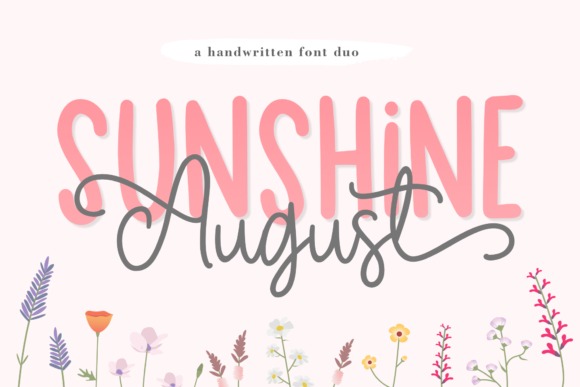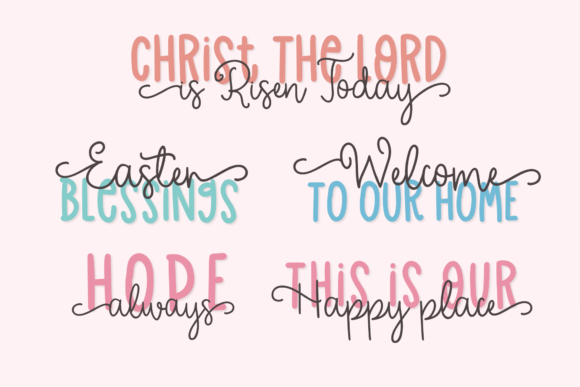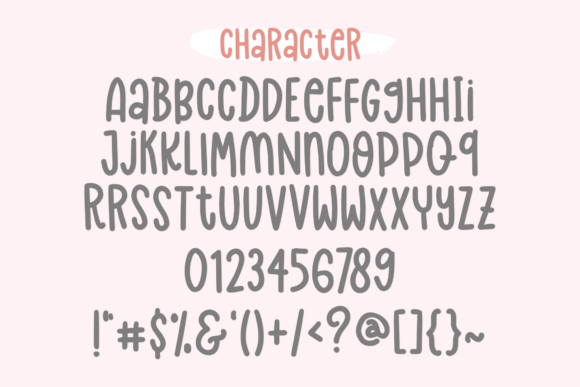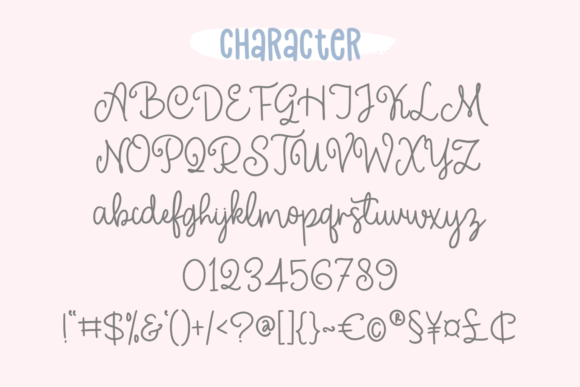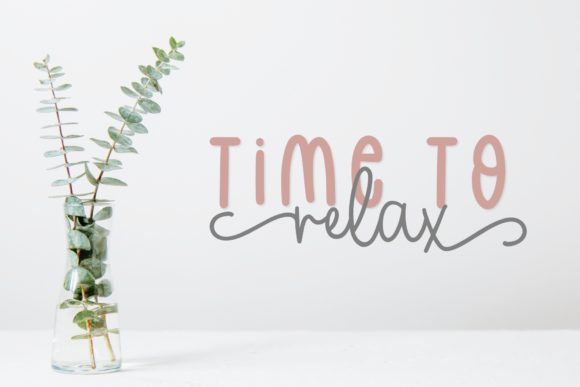
About Sunshine August Font
Sunshine August is a stunning and comprehensive duo font (script and sans serif), ideal for giving your projects a branded but friendly feel. This font is PUA encoded which means you can access all glyphs and swashes with ease!